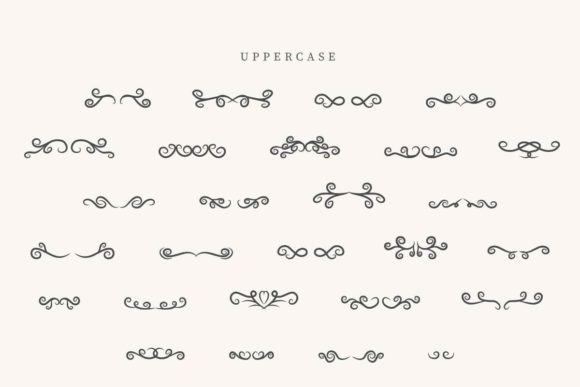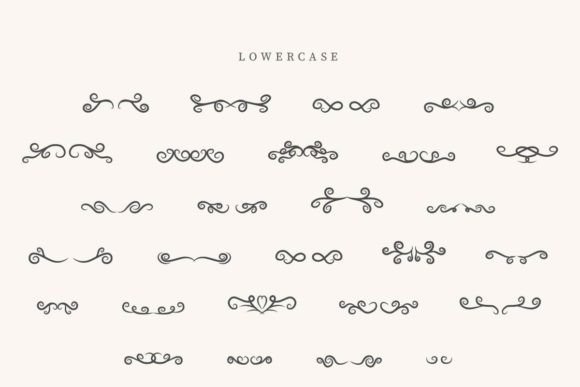
Introduction to Beach Summer Divider Font
Do you ever find yourself stuck in a design rut, yearning for something fresh and exciting to add to your next project? For me, it’s the sound of the waves crashing against the shore, the feeling of the sun on my skin, and the smell of saltwater in the air that gets my creative juices flowing. It’s moments like these that remind me of the power of design to transport us to a different world, and it’s exactly what inspired the creation of the Beach Summer Divider Font.
This stunning dingbat font is a treasure trove of beautifully designed glyph illustrations, perfect for adding a touch of relaxed, summer charm to your craft projects, stickers, decorations, or journals. Whether you’re a seasoned designer or just starting out, the Beach Summer Divider Font is a valuable resource that can elevate your logos, planners, t-shirt designs, invitations, or greeting cards to a whole new level.
Key Features of Beach Summer Divider Font
- High-quality design resource ideal for creative projects, such as beach-themed websites, social media graphics, and more.
- Features a clean and modern design, perfect for adding a touch of summer vibes to your creative project.
- Unique, hand-drawn style that adds a personal touch to any design project, making it stand out from other fonts.
Honest Review: Beach Summer Divider Font
I recently had the chance to use the Beach Summer Divider Font in one of my creative projects, and I must say it’s a fantastic addition to any design resource. This font is perfect for adding a touch of summer vibes to your designs.
- ✨ High-quality font with a unique and playful design
- ✨ Great for creative projects that require a light, airy feel
- ✨ Transparent background makes it easy to place on any design
- ⚠️ Limited character set, which may be a problem for longer text-based projects
- ⚠️ Not ideal for formal or professional designs, as it’s quite playful and casual
Overall, I’m really impressed with the Beach Summer Divider Font. It’s a great addition to any design resource, and I can see it being used in a variety of creative projects. Just be aware of its limitations, and you’ll be all set to create some amazing designs.
Beach Summer Divider Font
Getting the Most Out of the Beach Summer Divider Font
To get the most out of the Beach Summer Divider Font, use it as a creative way to separate sections in your design. You can also use it as a decorative element to add a touch of summer to your project.
Common Use Cases for the Beach Summer Divider Font
The Beach Summer Divider Font is perfect for summer-themed designs, such as beach wedding invitations, summer party flyers, and vacation brochures. It’s also great for adding a touch of summer to your branding and marketing materials.